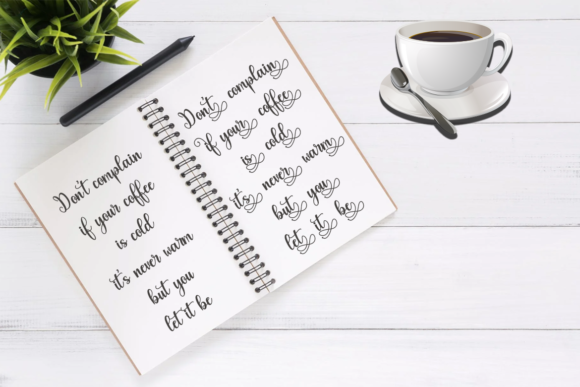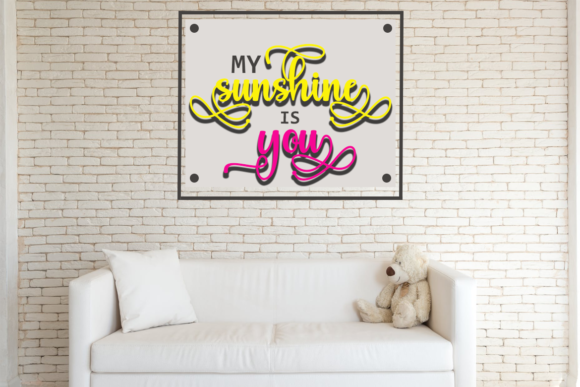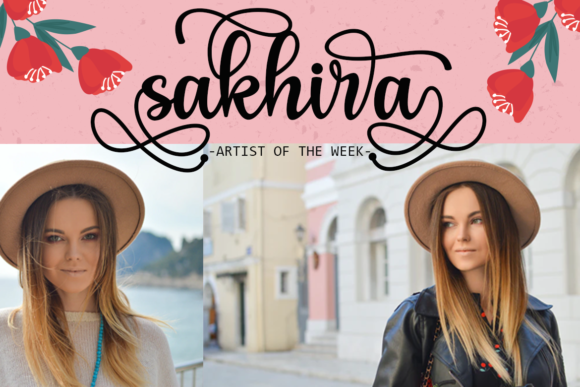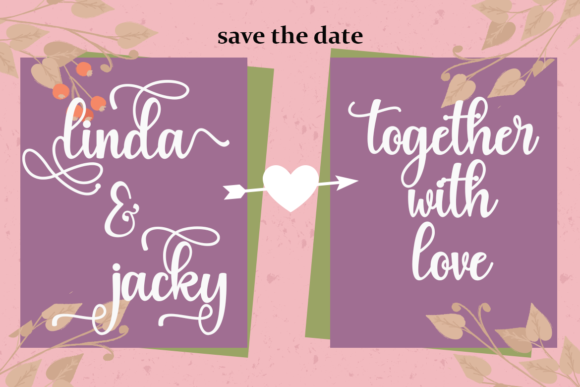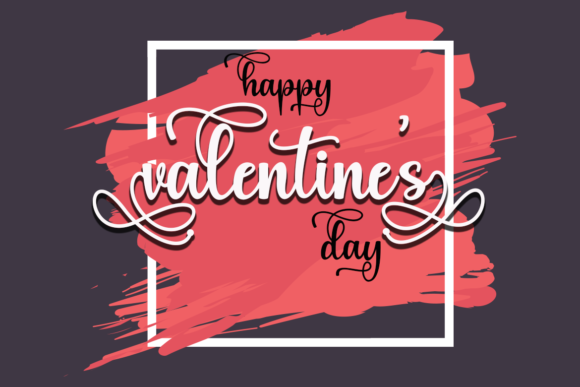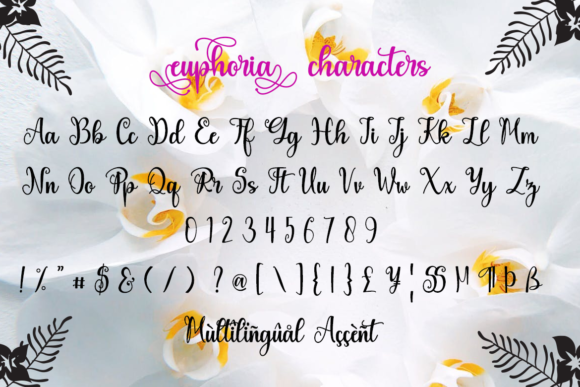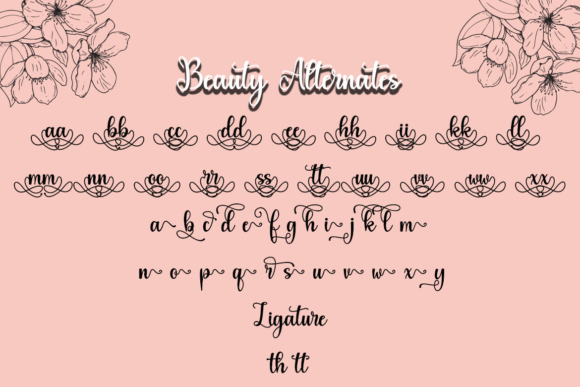
Euphoria Font
About Euphoria Font
Euphoria is a delicate, elegant and flowing handwritten font. Add it to your most creative ideas and notice how it makes them come alive!